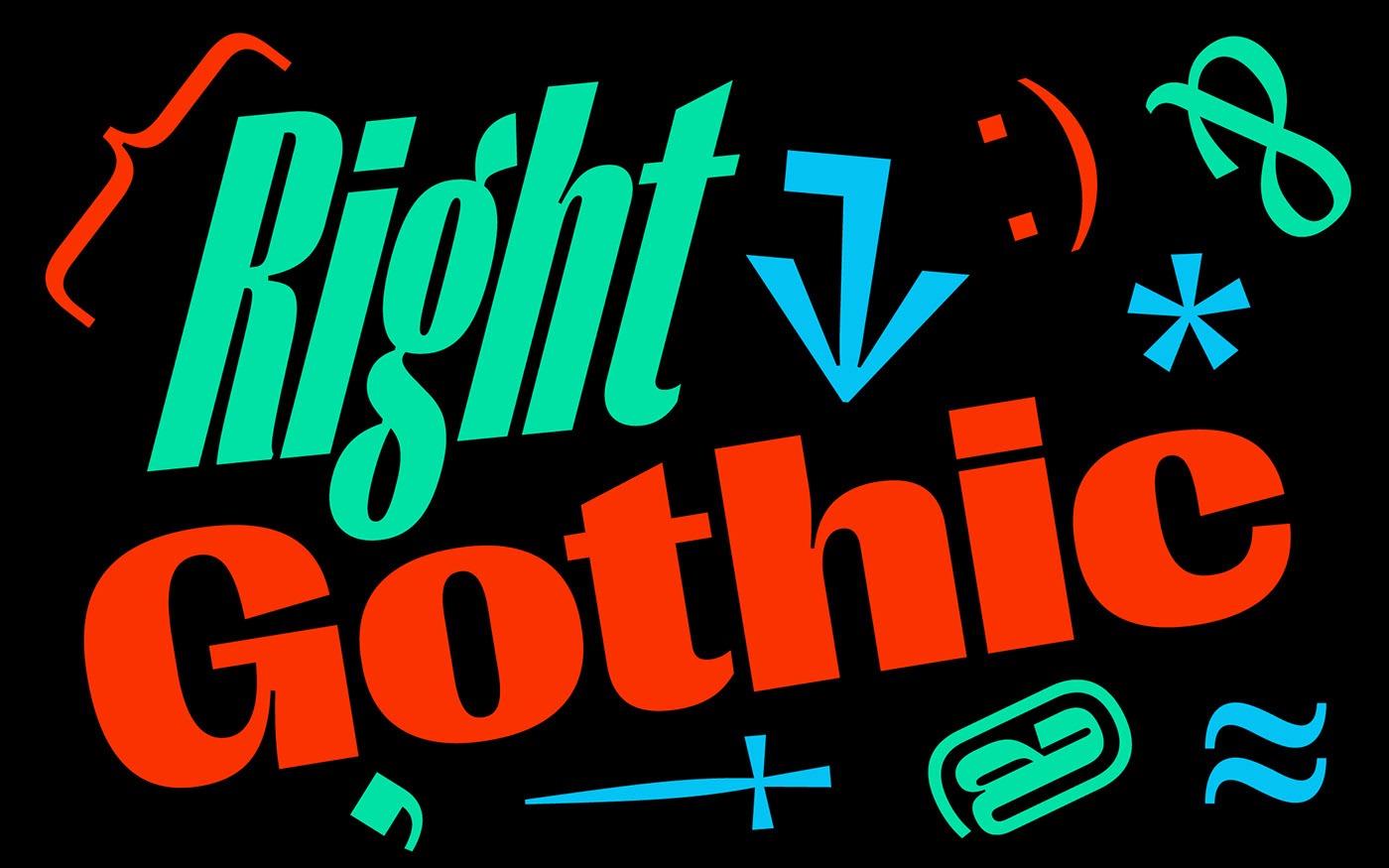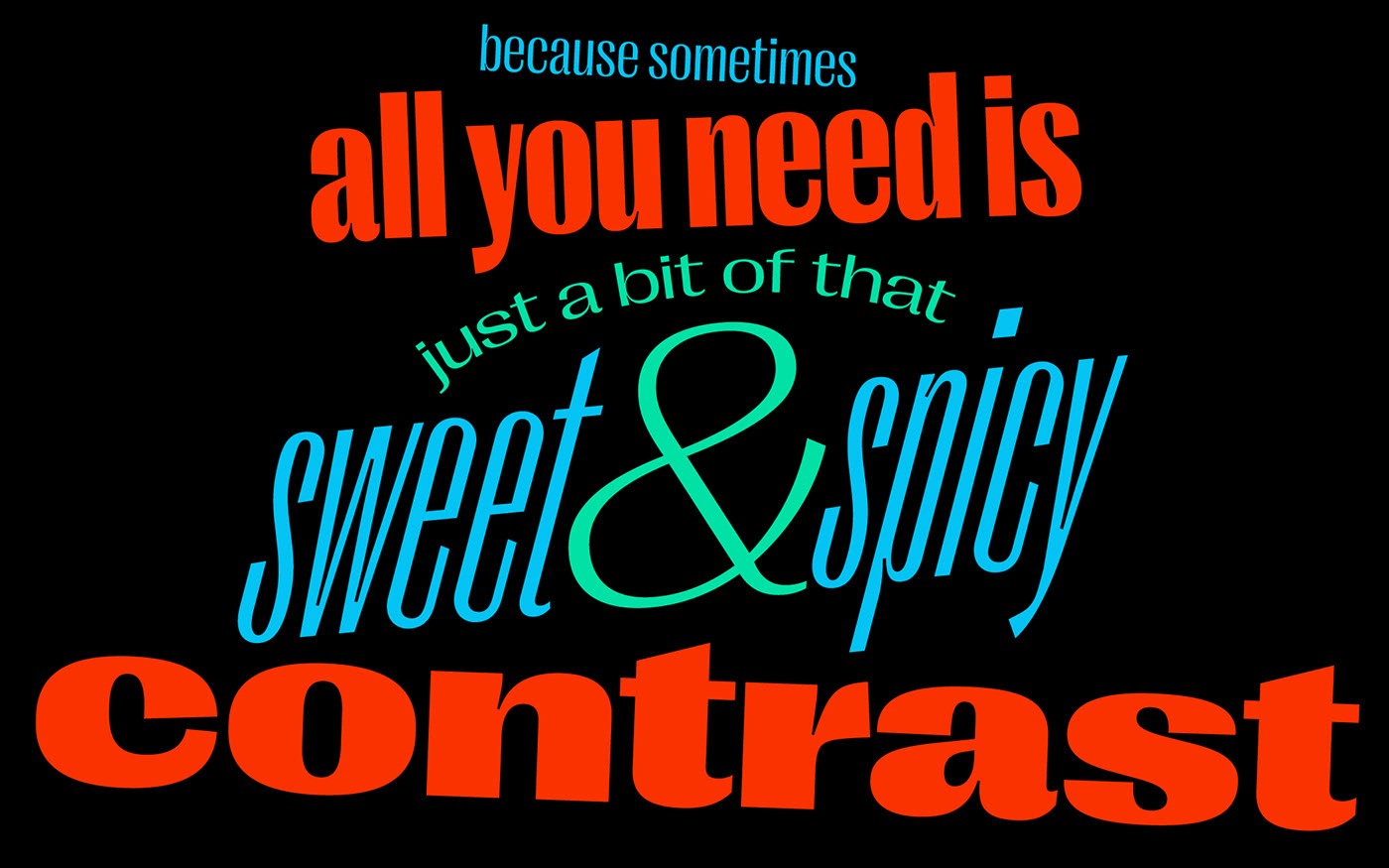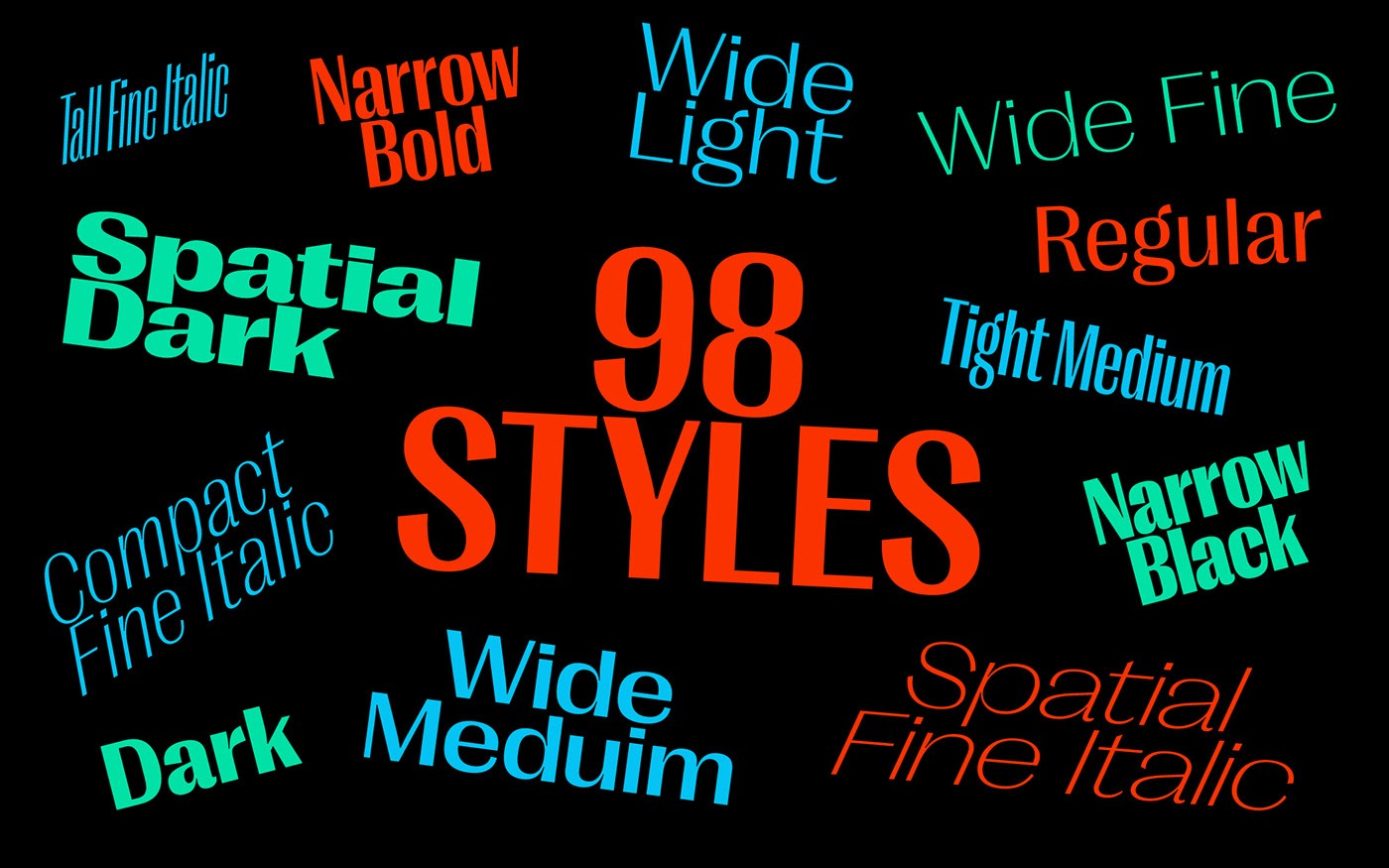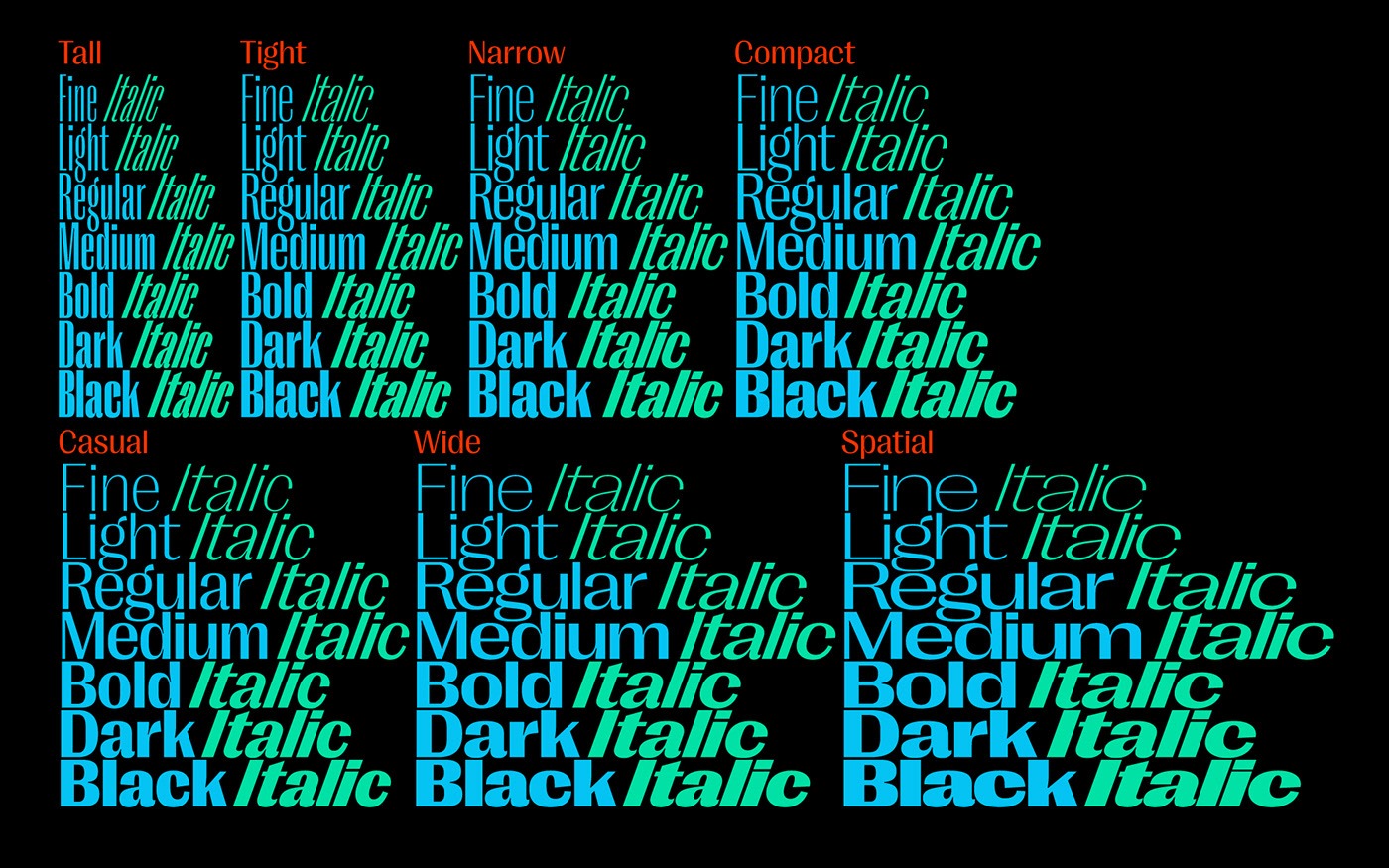
Right Gothic Sans Serif Font
This is a cool and trendy sans serif font. Its unique voice is based on the distinct details, smooth ink traps, contemporary feel, yet overall familiar letterforms. While most modern sans serif fonts (such as Right Grotesk) have low contrast between thick and thin strokes, Right Gothic takes a step back towards serif anatomy and features a clearly pronounced contrast. The word “Gothic” in its name refers to the genre of early pre-Swiss sans typefaces, which often were sort of “serif without serifs”.